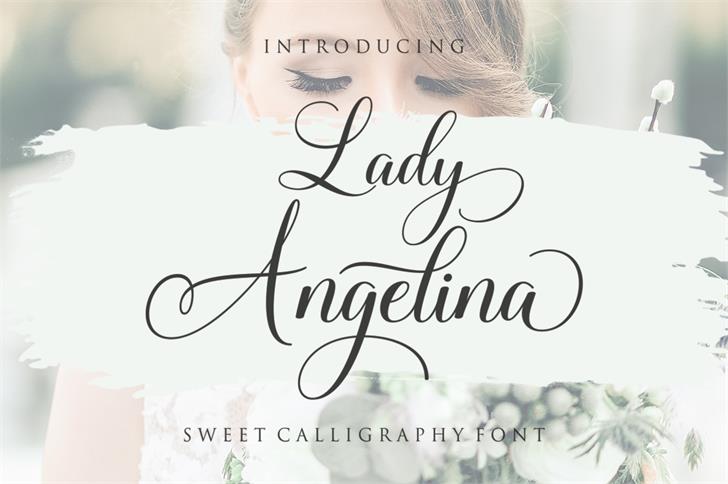
Lady Angelina Script Font
Lady Angelina Script Font – Free Demo
Invite you to enjoy a sweet calligraphy fonts. Add it to your fonts collection. Introducing Lady Angelina Font! It is was designed and shares by Megatype. Lady Angelina is sweet calligraphy font, including Regular. This font is casual and pretty with swashes. Can used for various purposes. such as logo, product packaging, wedding invitations, branding, headlines, signage, labels, signature, book covers, posters, quotes and more.